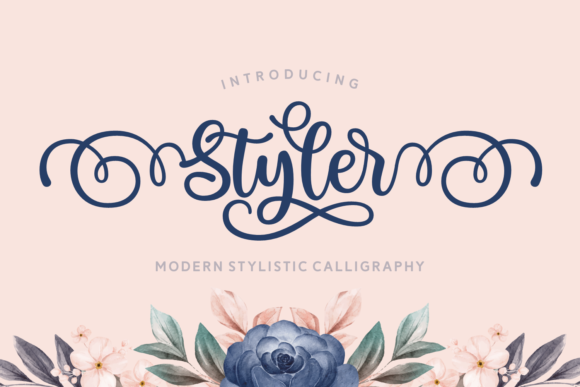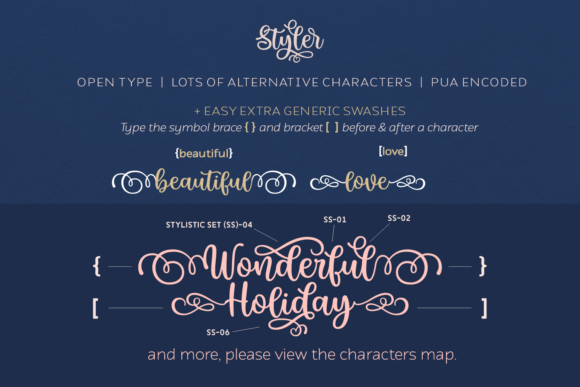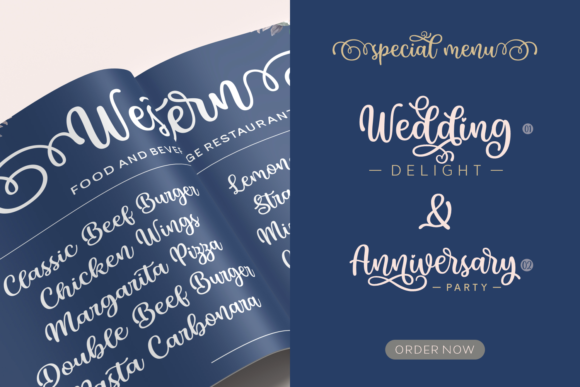
About Styler Font
Styler is a unique and elegant handwritten font. It looks beautiful on a variety of designs requiring a personalized style, such as wedding invitations, thank you cards, weddings, greeting cards, logos and so on.